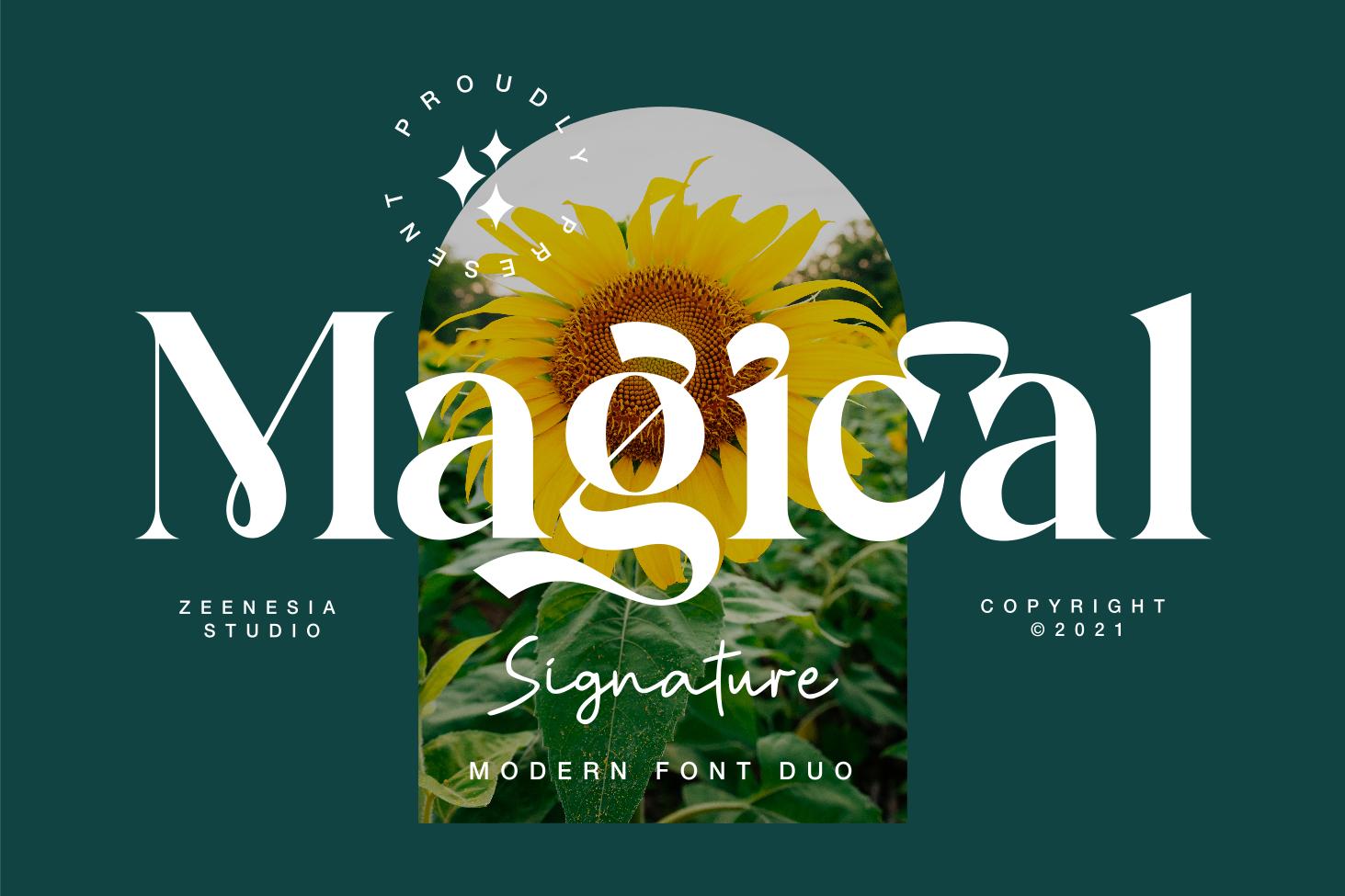
Magical Signature Font Description
Magical Signature consists of two fonts designed to complement each other perfectly. Together or apart, these fonts are ideal for adding a chic and cheery touch to your crafts. This font is PUA encoded which means you can access all glyphs and swashes with ease!